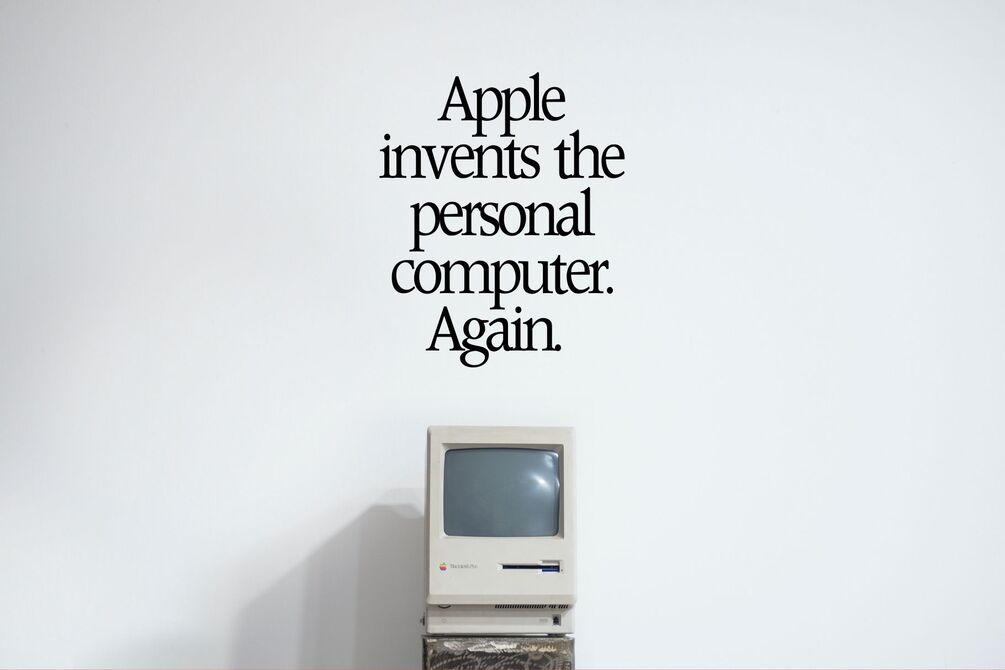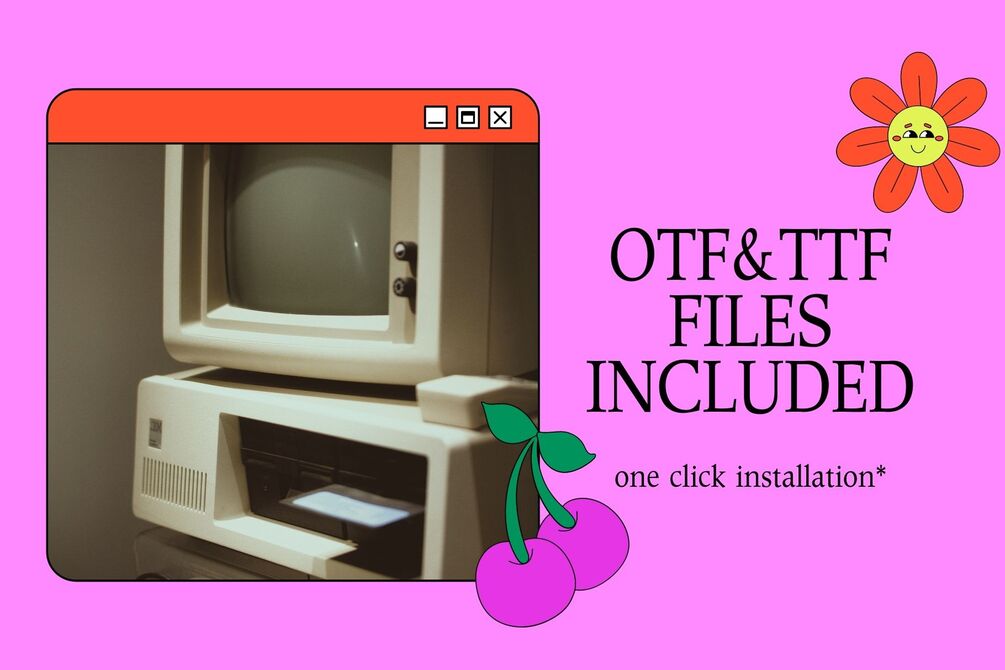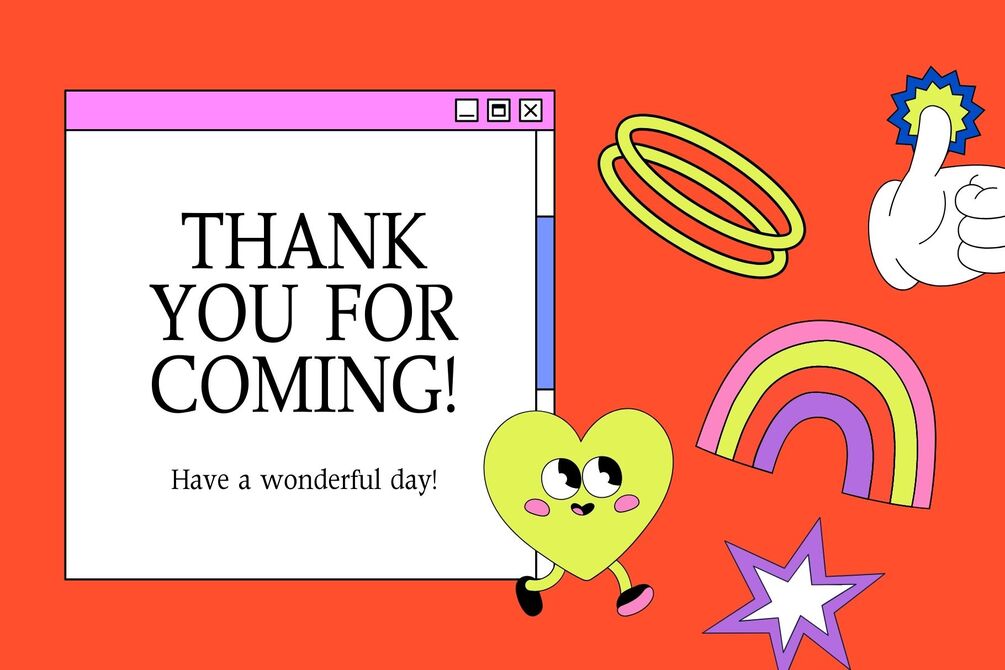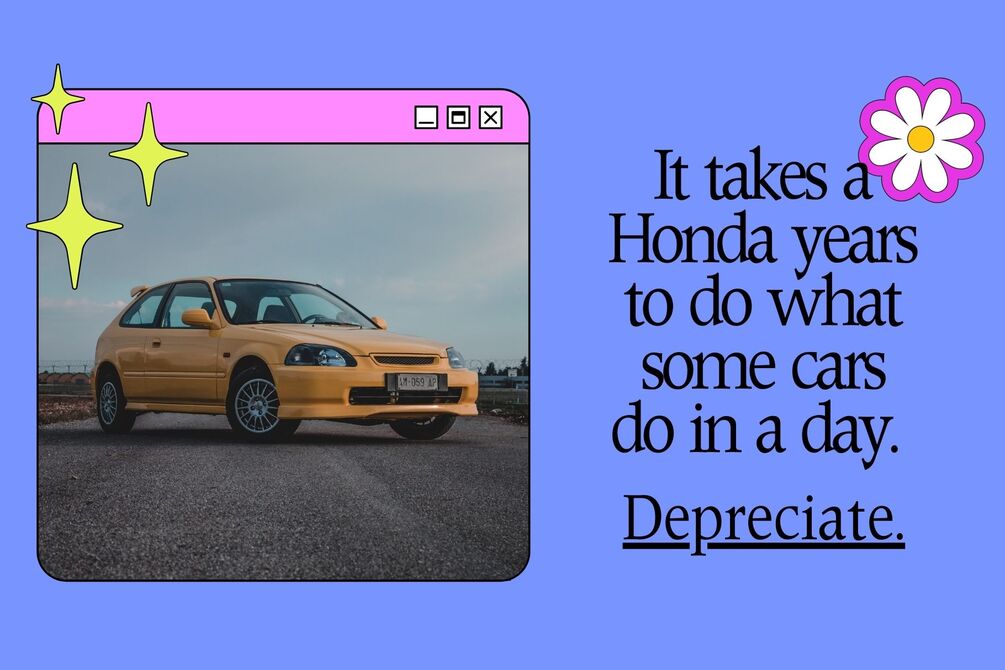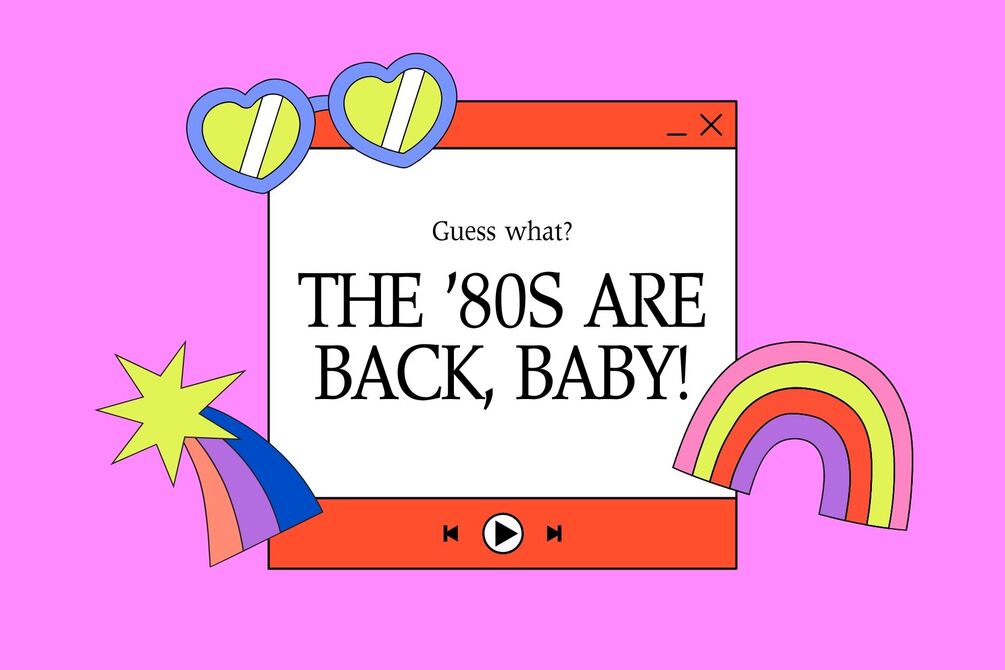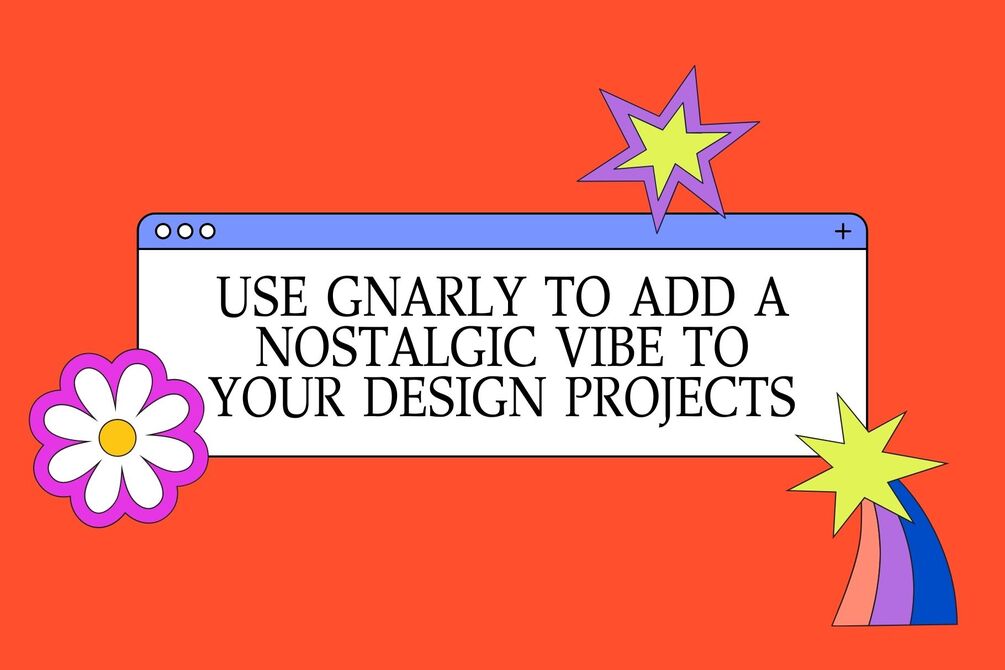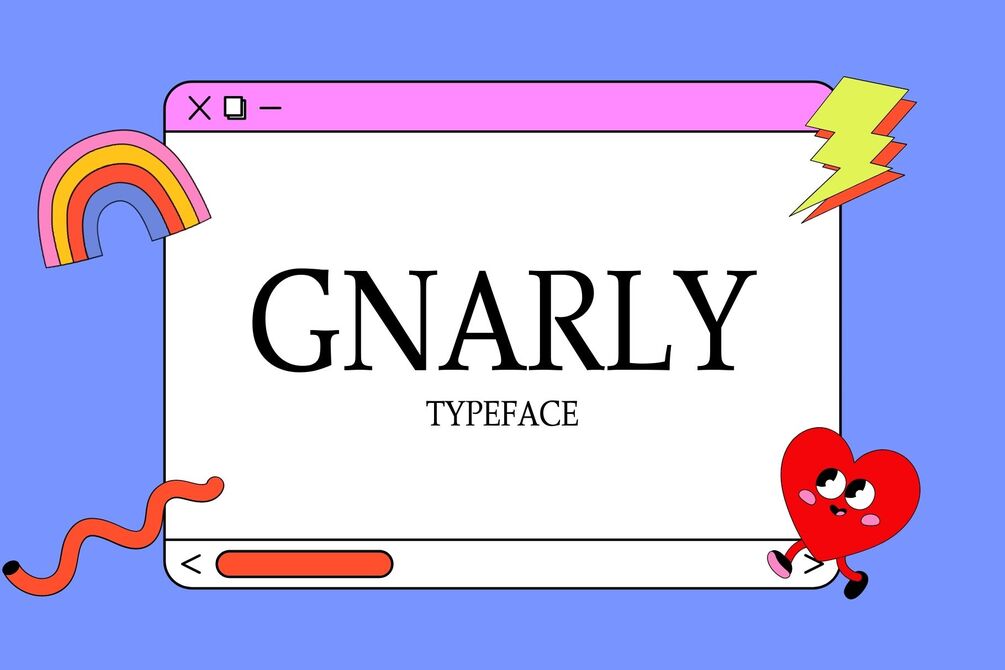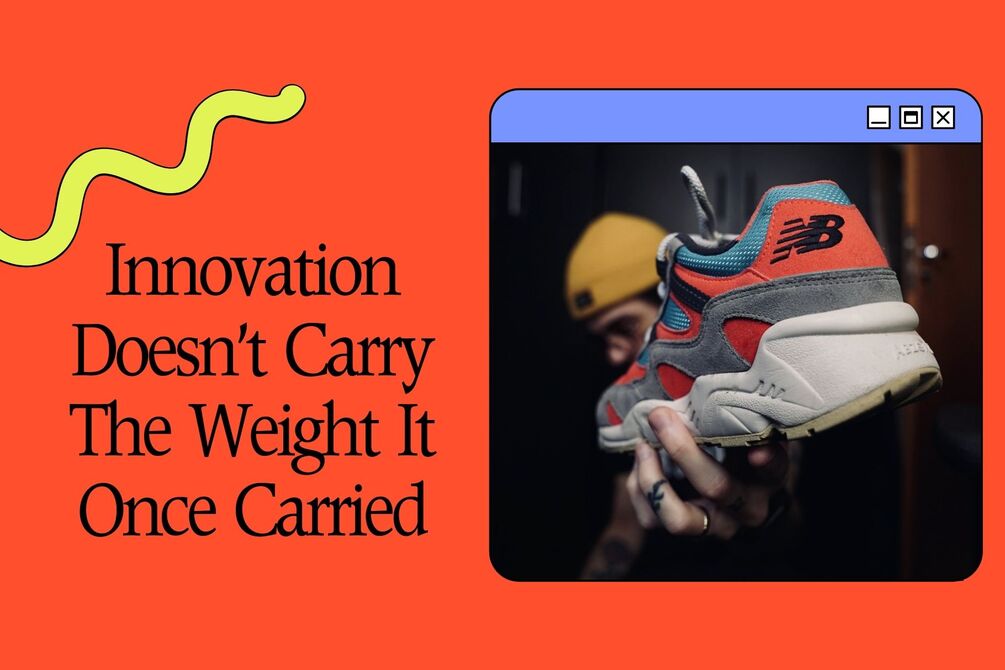
Gnarly - Nostalgic 1980s Typeface
Inspired by magazine adverts from the 70'sand 80's, Gnarly is ideal for marketing, advertising, editorials, branding, and more. It's works perfectly for headlines that require tight tracking.
Gnarly features upper and lowercase letters that looks incredible in both large and small settings. This retro serif is super-versatile and will add proper aesthetics to your vintage-based design projects.